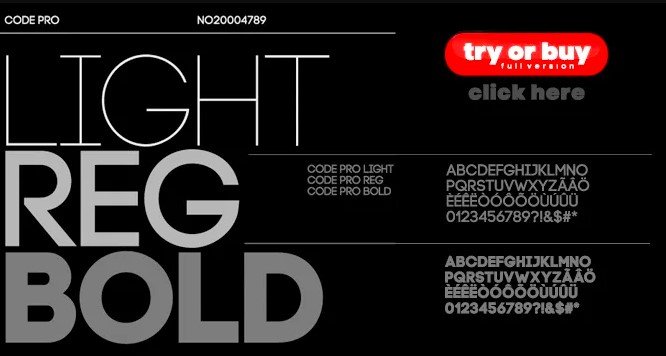
Hello designers We’re excited to introduce another fantastic sans serif typeface to you: Code Font. This modern, high-quality, and easy-to-read typeface was crafted by the renowned font design company FontFabric.
View Of Code Font
Here we provide an image that includes the characters and letters of this beautiful, you can perceive it by viewing the image and getting an idea of how delightful it is.